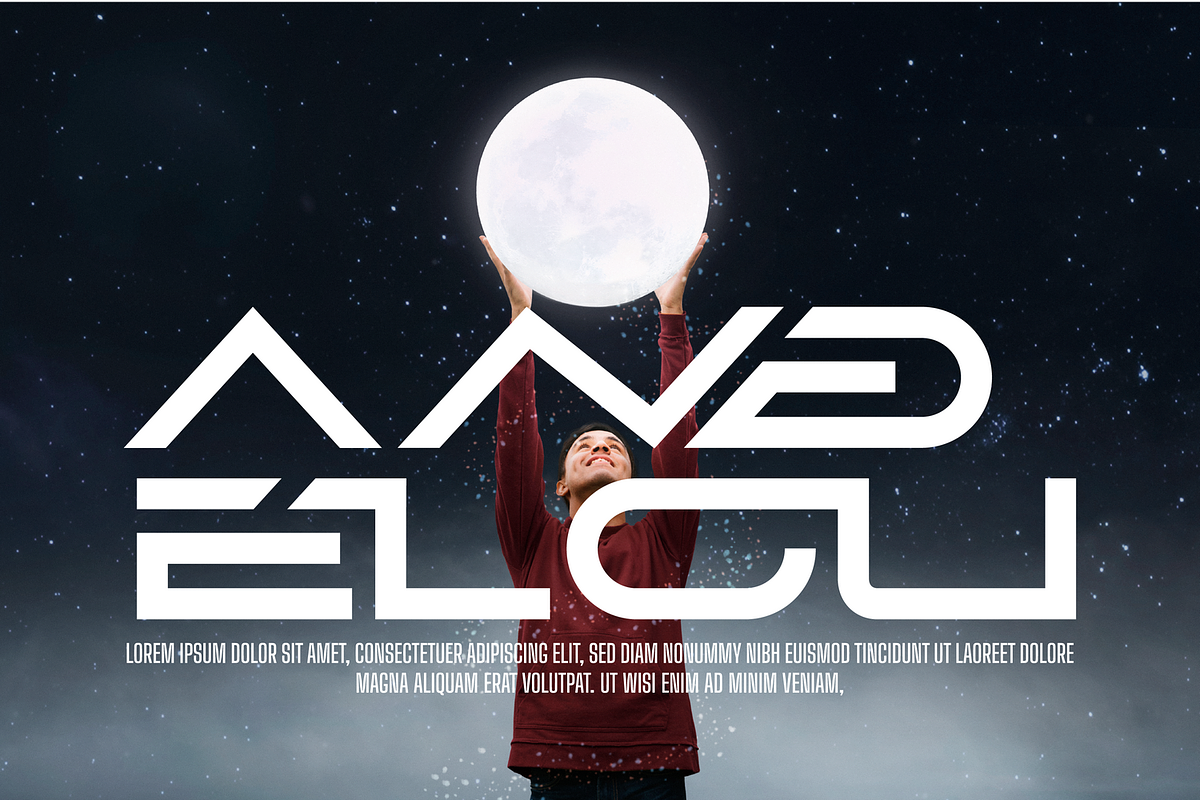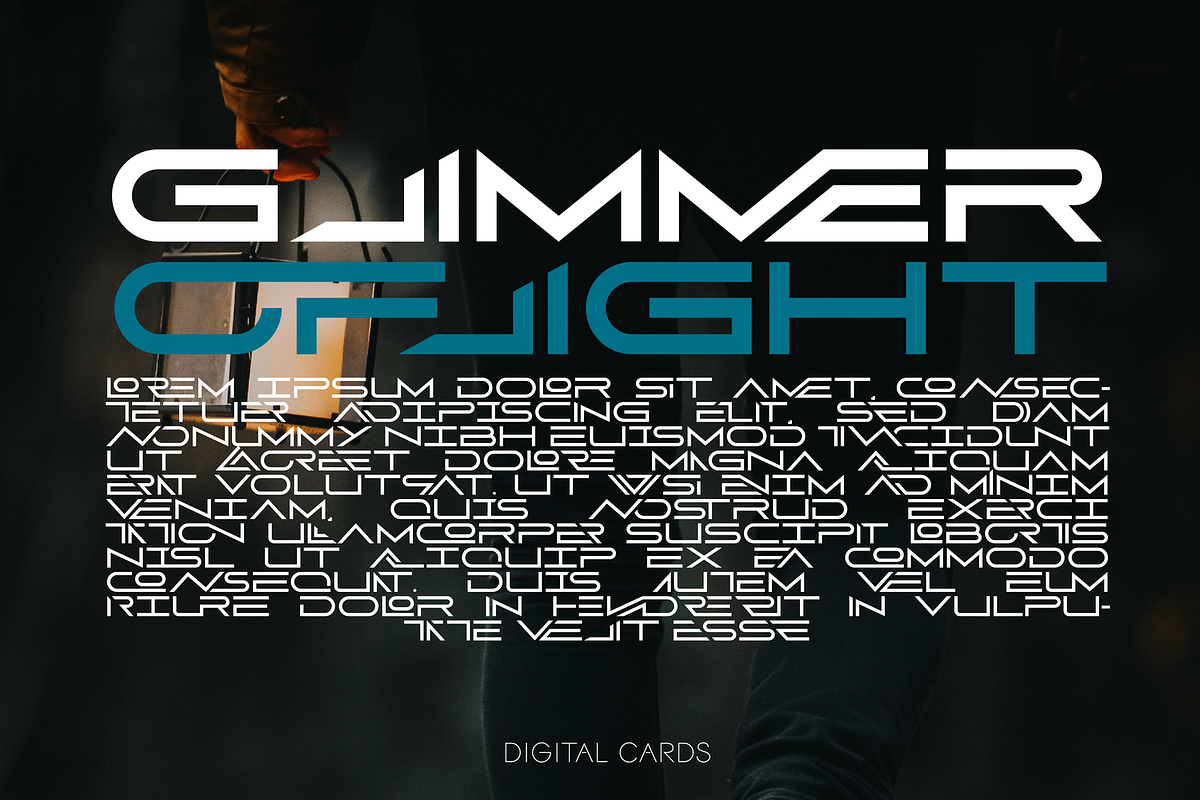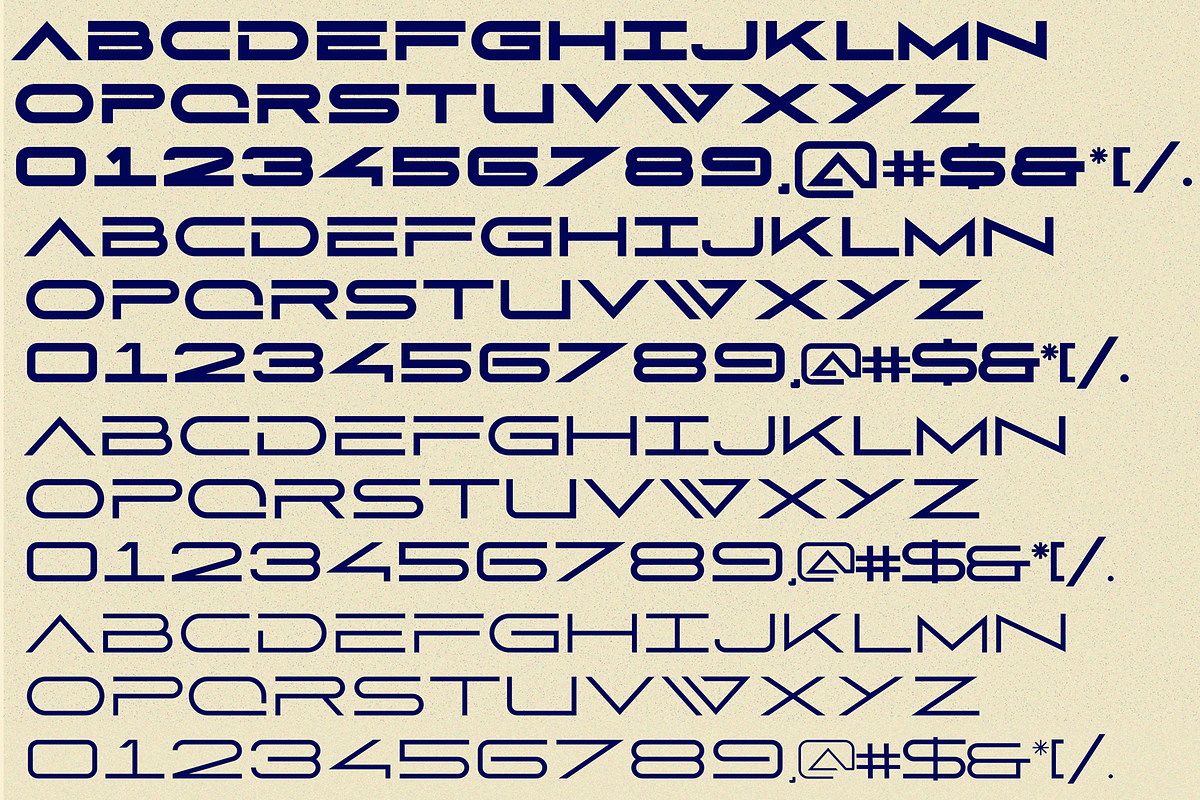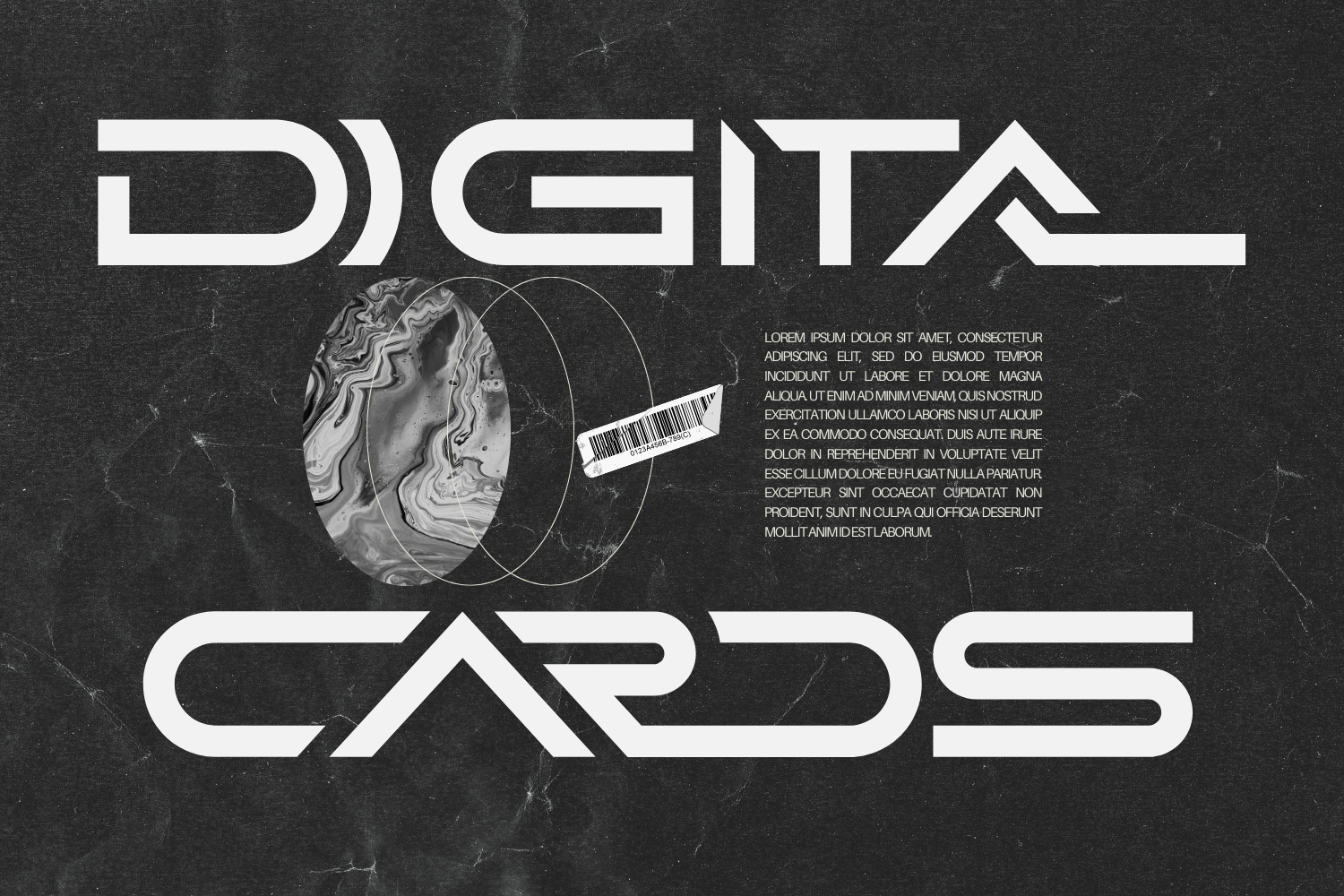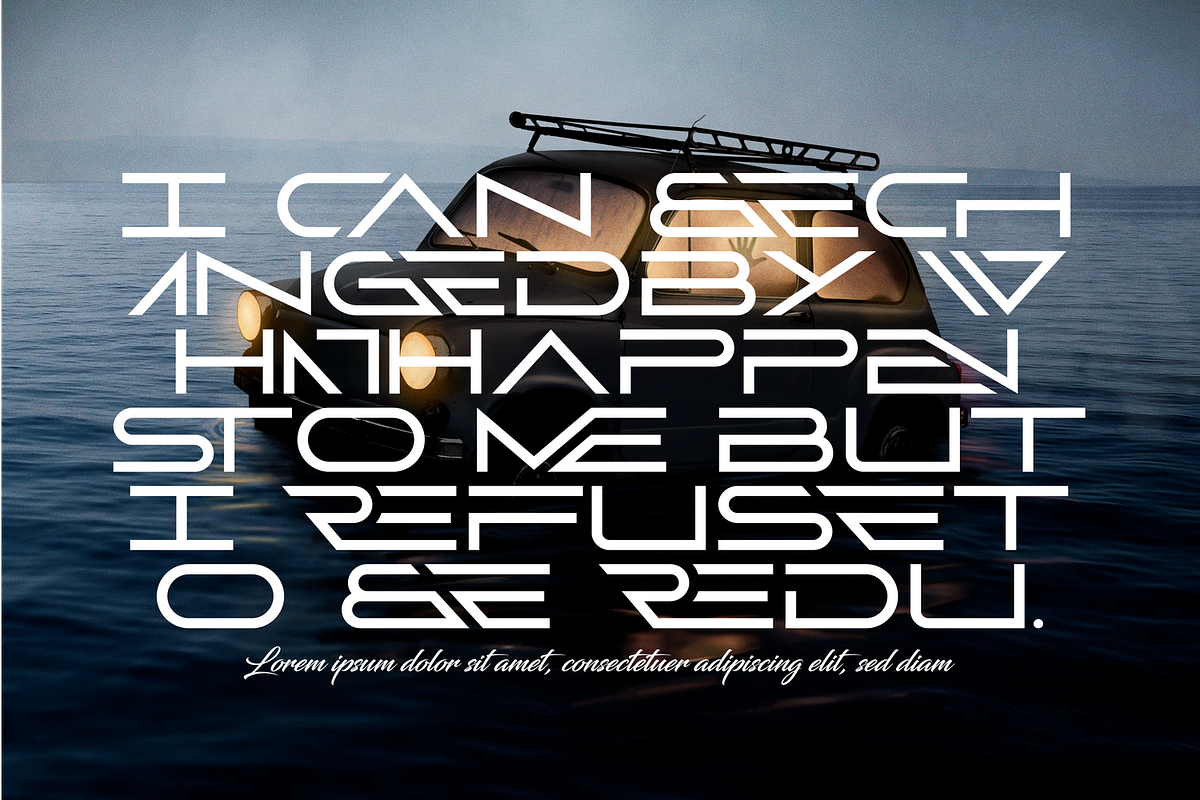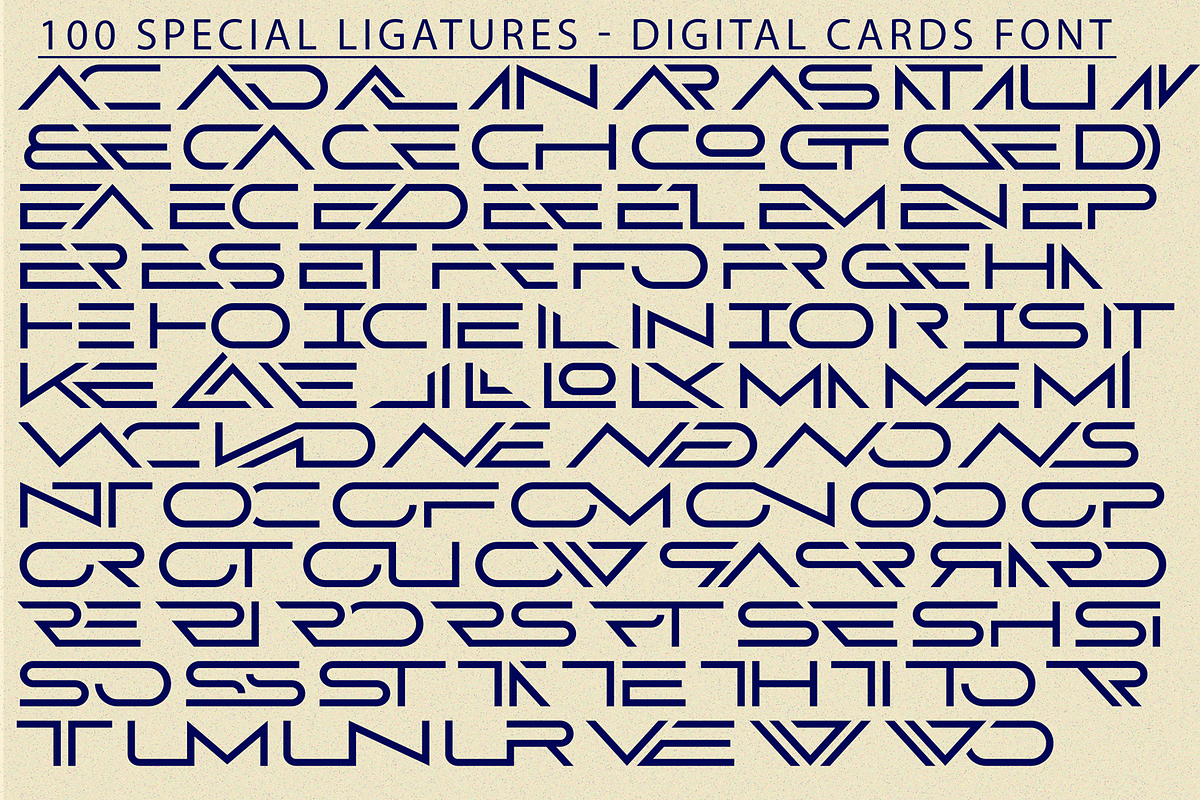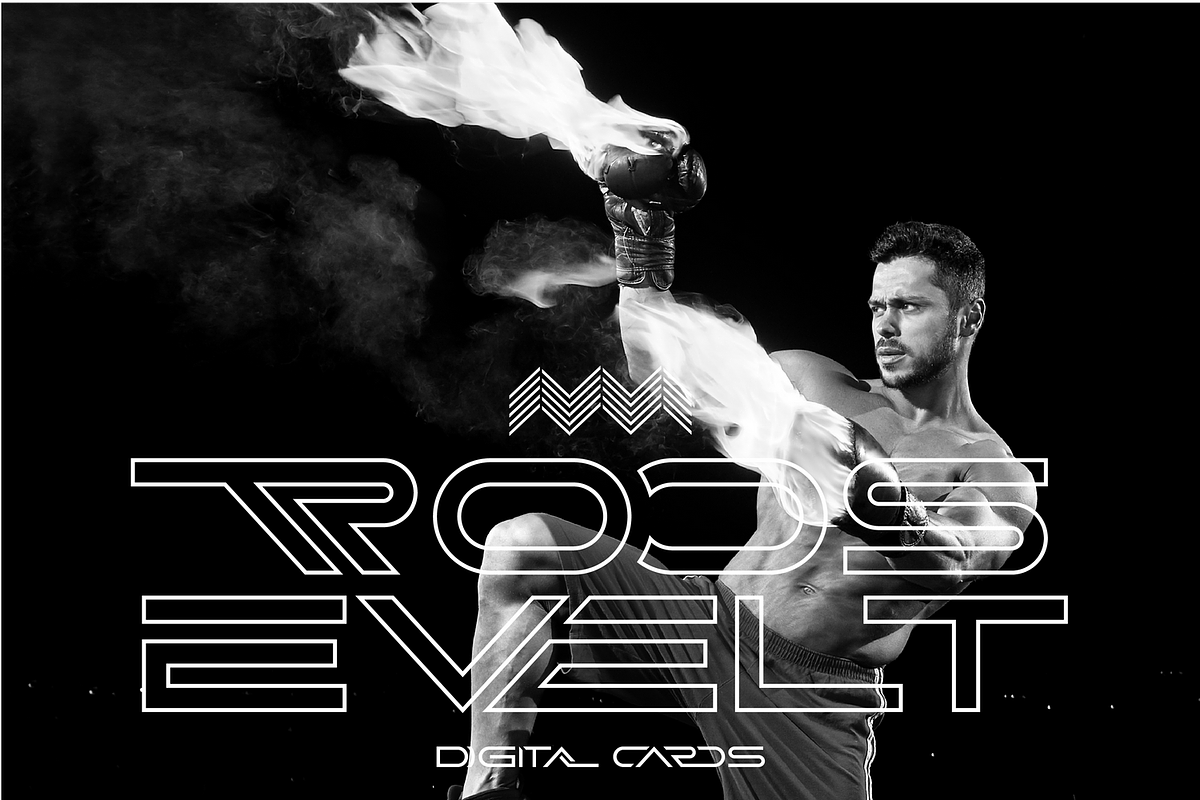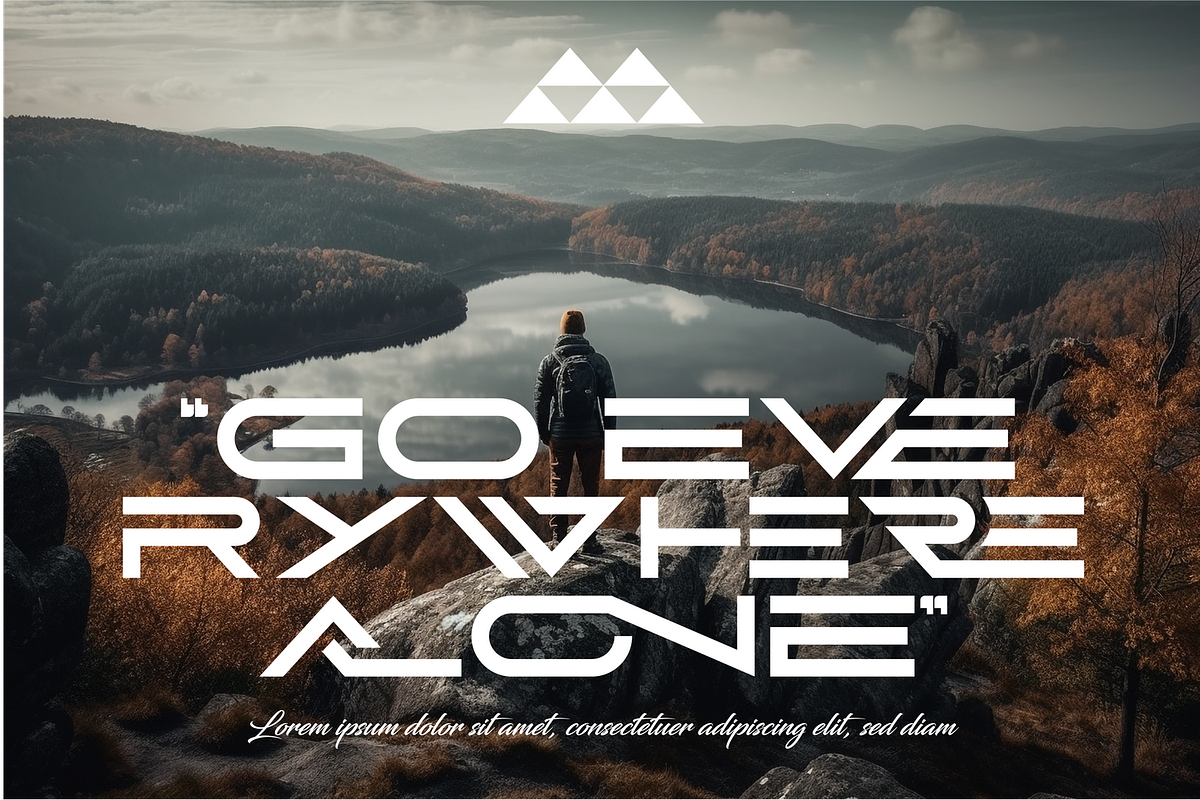
Digital Cards - Tech Font
Digital Cards - Tech Font is a modern and futuristic level of typeface. Show the futuristic side of your projects. The font references the science-fiction visual of the retro-futurism mindset, making it perfect for any project that requires a futuristic and technologically advanced design. Perfect for the purposes of designing templates, brochures, videos, advertising branding, logos, invitation, layout design, elegant crafting, beauty design and other.
Digital Cards was built with OpenType features and includes 100 ligatures, alternate, numbers, punctuation, and it also supports other languages.
- Special Ligatures